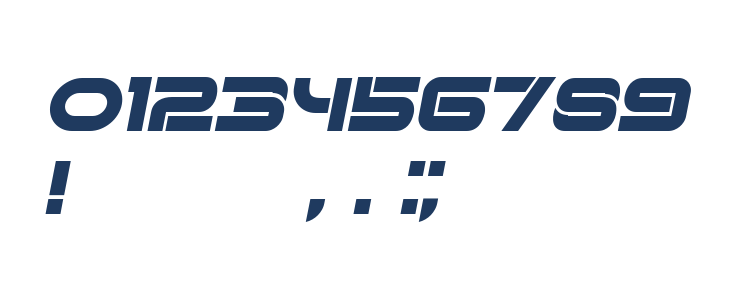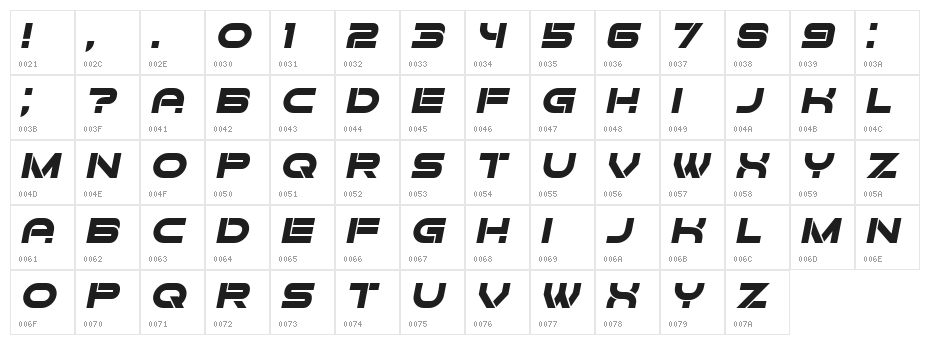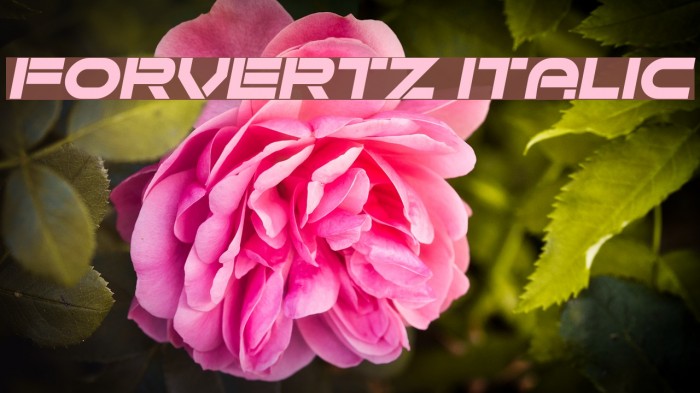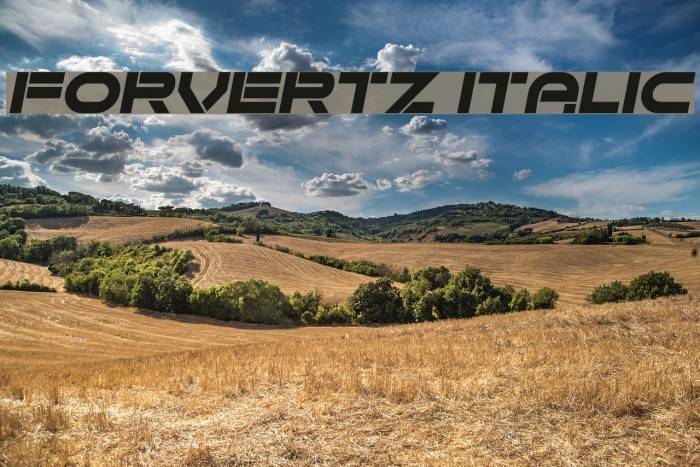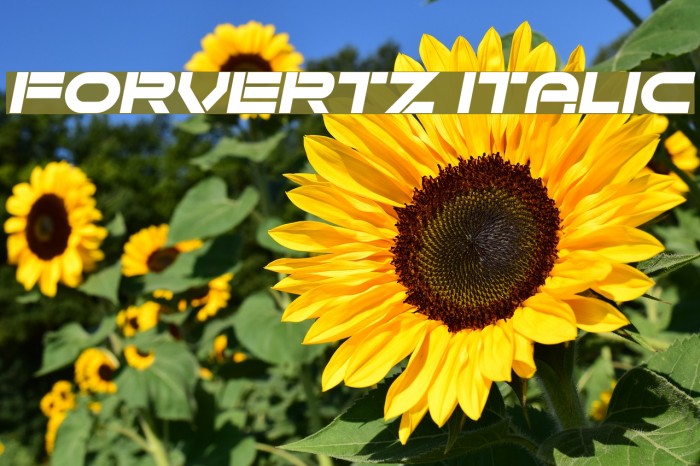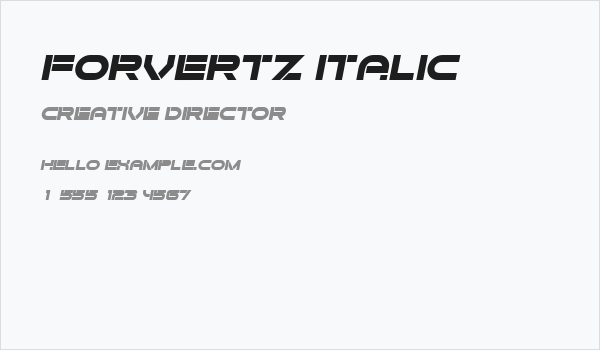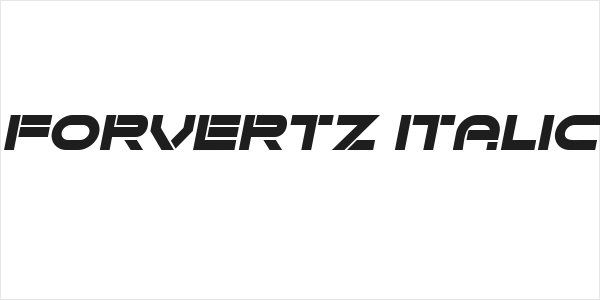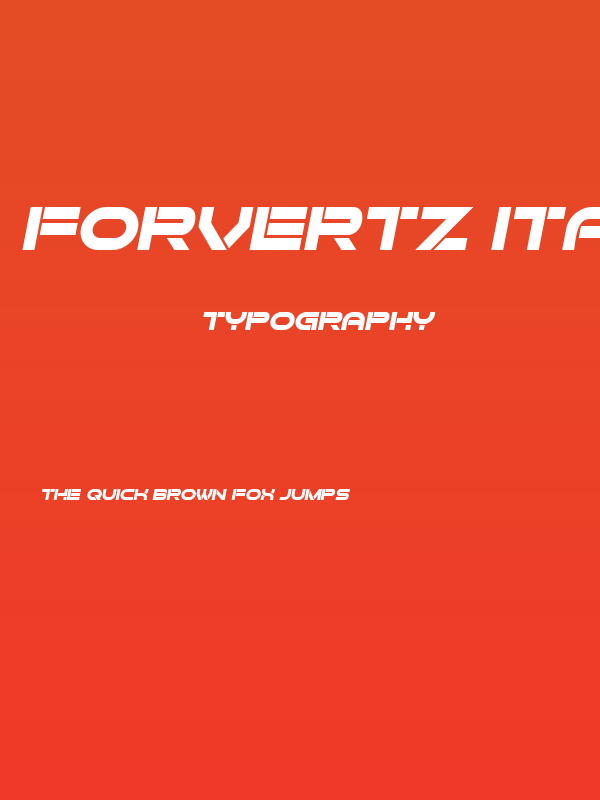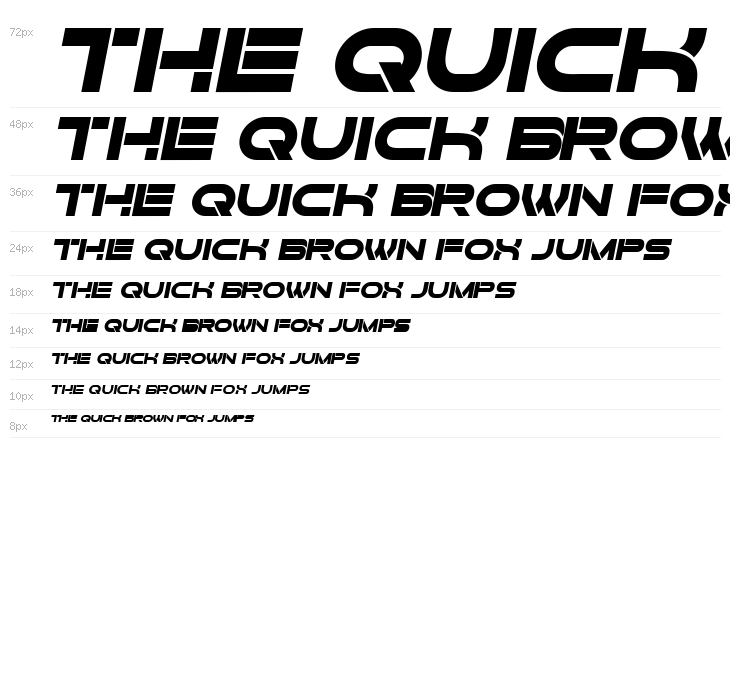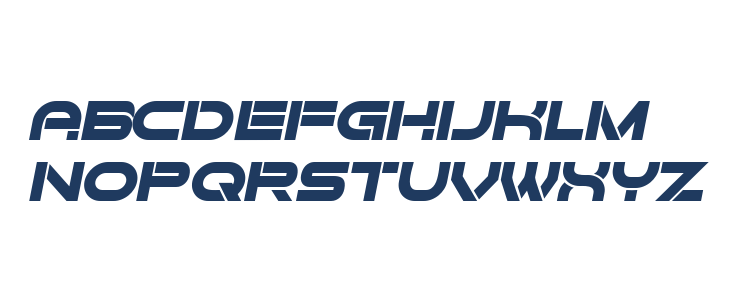
Forvertz Italic Font
Forvertz Italic Description
This font features a modern, futuristic design with a distinct italic slant, giving it a dynamic and forward-moving appearance. The characters are bold and geometric, with sharp angles and a streamlined look. The uppercase and lowercase letters maintain a consistent style, emphasizing a sense of speed and efficiency. The numerals and special characters are designed to match the overall aesthetic, ensuring uniformity across all text. The font's unique style makes it suitable for projects that require a contemporary and cutting-edge feel.
| Overall Style | Futuristic, Dynamic |
| Proposed Projects | Ideal for technology branding, sci-fi movie posters, video game titles, and modern advertising campaigns. |